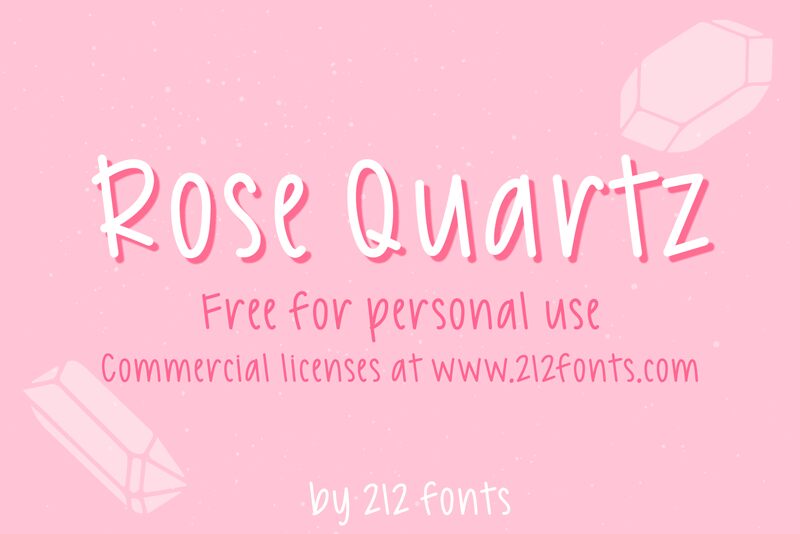
212 Rose Quartz is a beautiful handwritten typeface designed by Elizabeth McLain. Its semi-light weight and semi-condensed width make it perfect for a variety of creative projects, from wedding invitations to product packaging. The delicate strokes of this font give it a whimsical feel, making it ideal for feminine branding and design projects. Whether you're crafting a logo, designing social media graphics or creating a website, 212 Rose Quartz is the perfect choice for adding an elegant touch to your project. With its unique style and versatility, this font is sure to become a favorite among designers and creatives alike.
Elizabeth McLain
Handwritten font